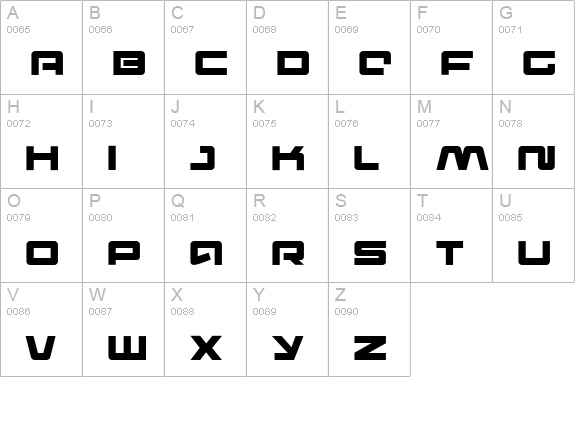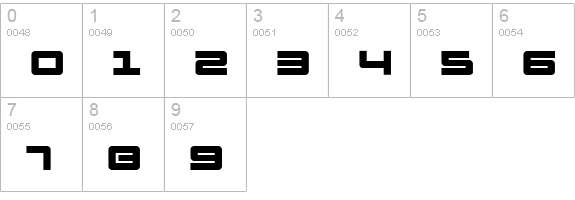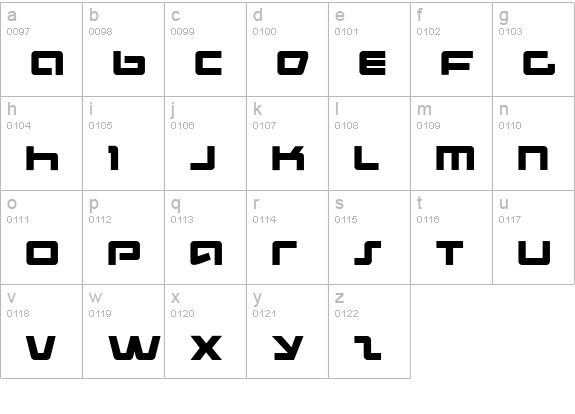
Pulse Rifle Font Details
Introducing Pulse Rifle font, a sleek and futuristic typeface that is perfect for adding a touch of modernity to your designs. With its sharp angles and bold lines, Pulse Rifle exudes a sense of strength and power. Whether you are designing a poster, logo, or website, this font is sure to make a statement. The best part? Pulse Rifle font is completely free to download at FontsMarket.com. That's right, you can enhance your projects with this striking font without spending a dime. Don't miss out on the opportunity to elevate your designs with the unique style of Pulse Rifle font. Download it now and let your creativity soar.